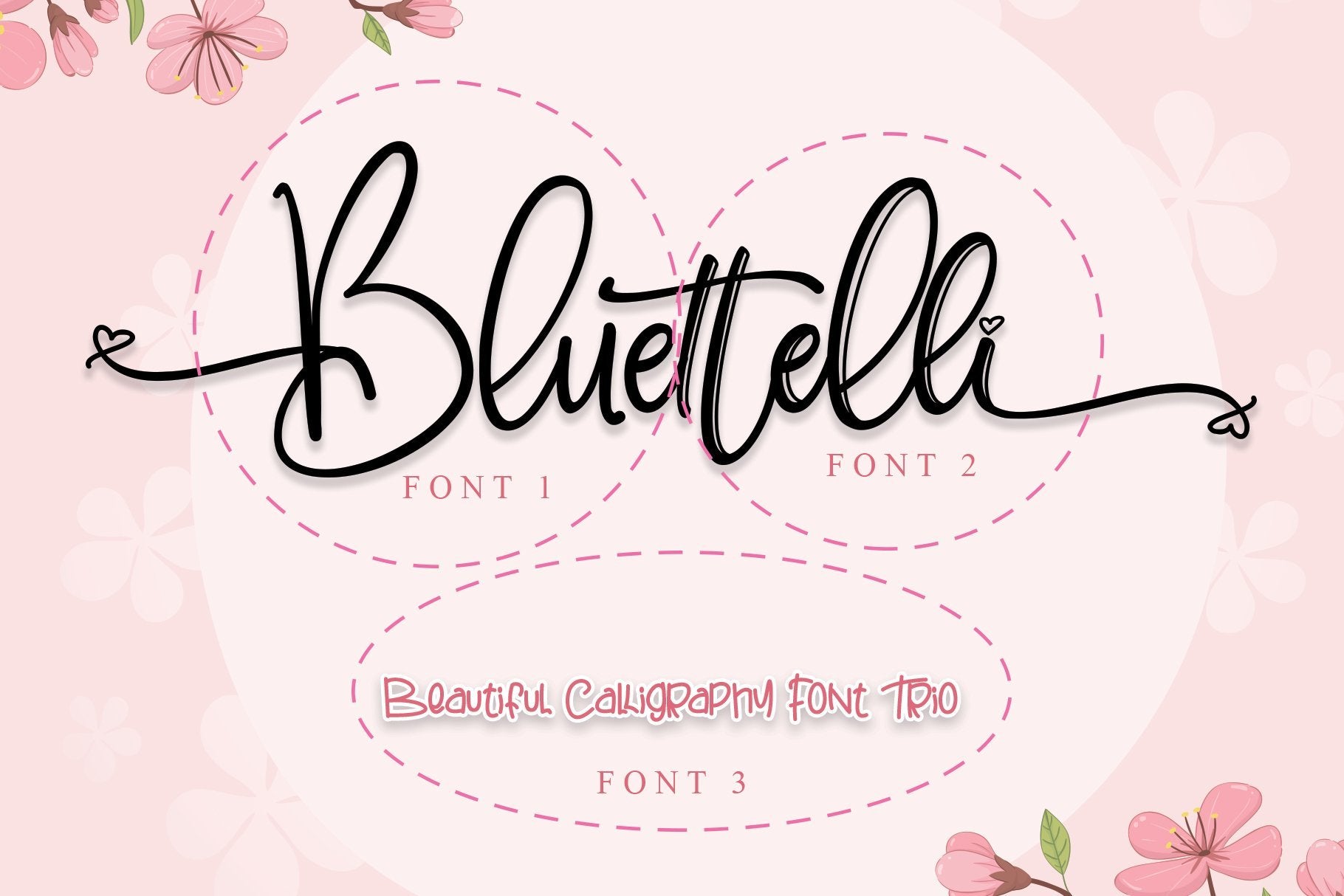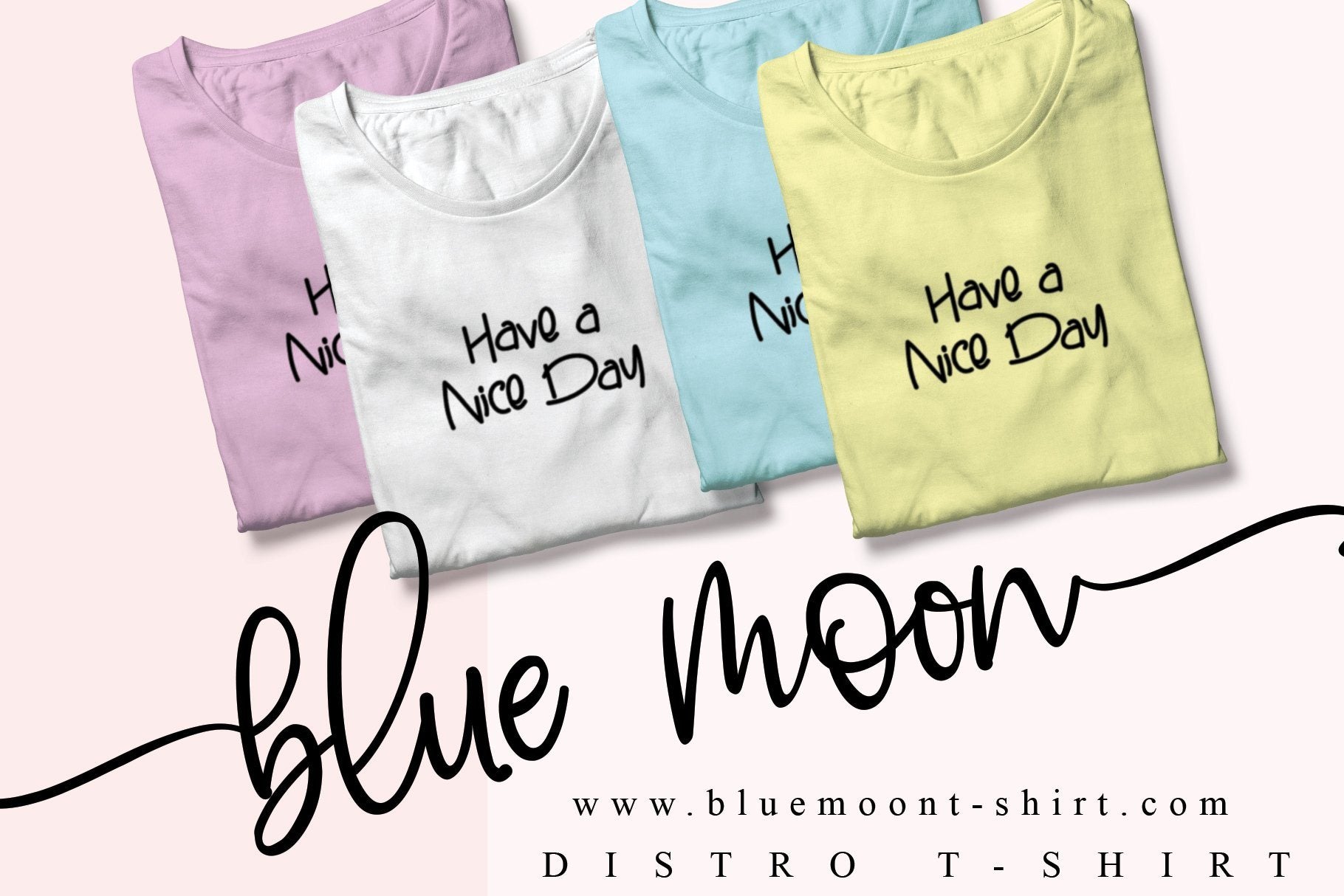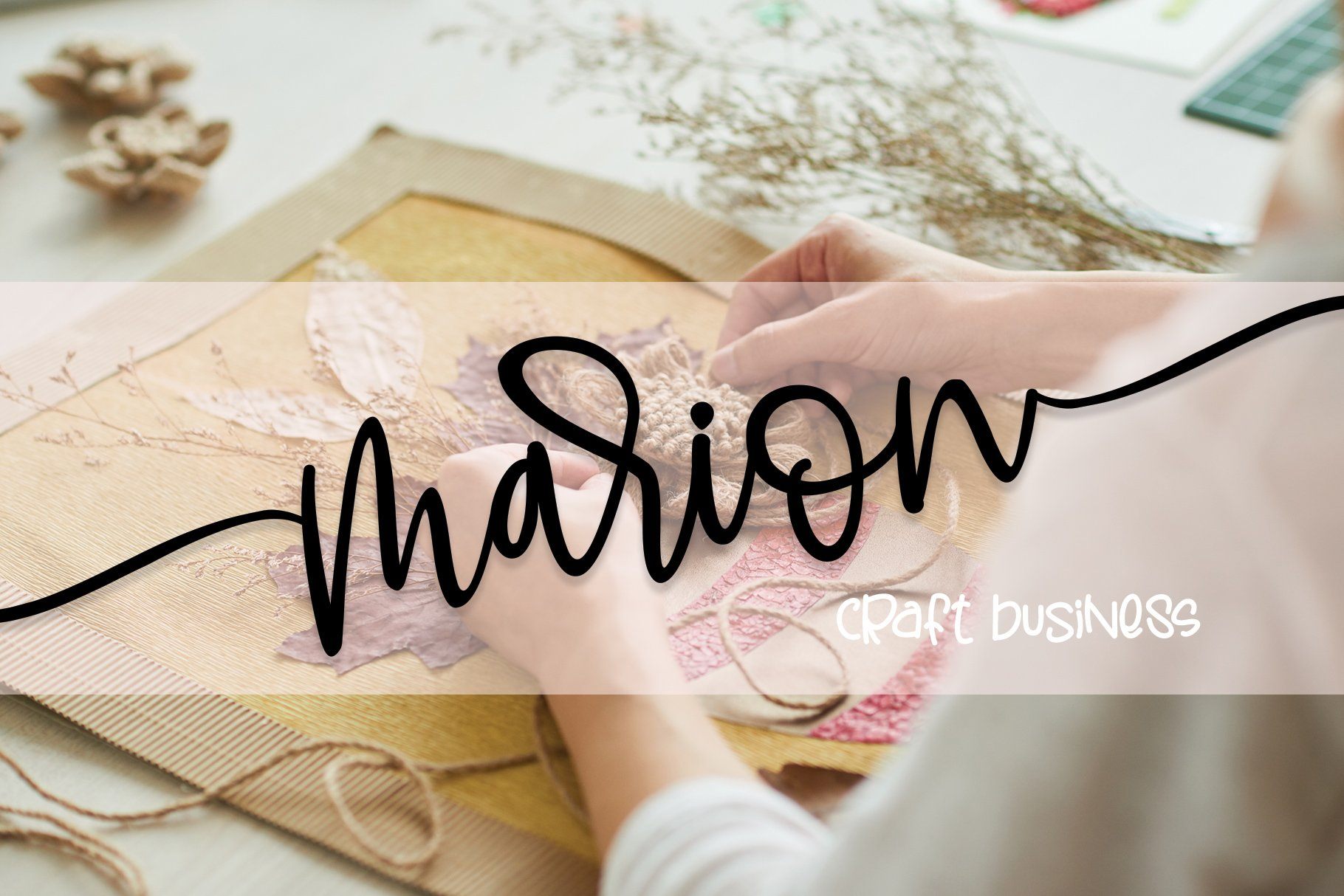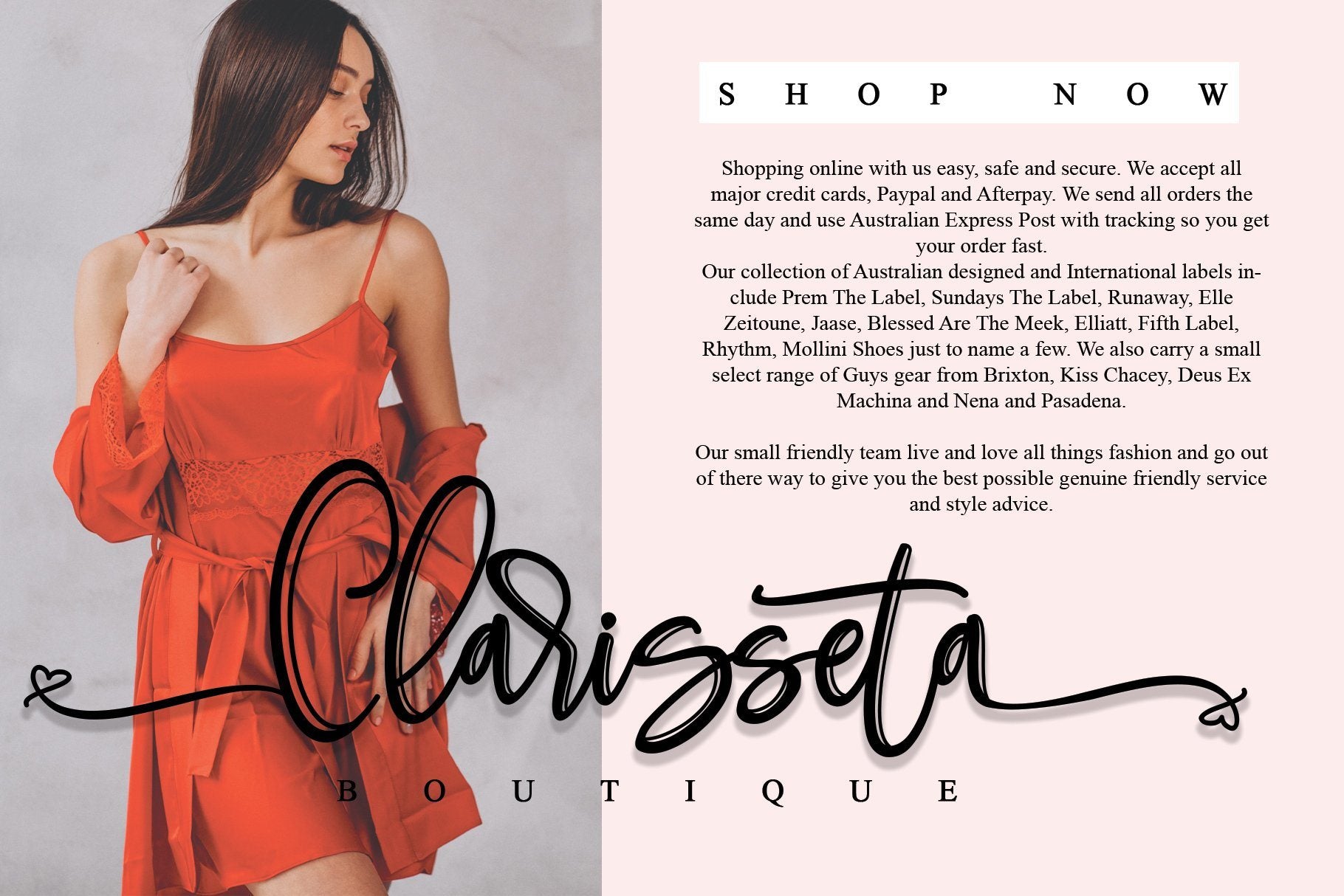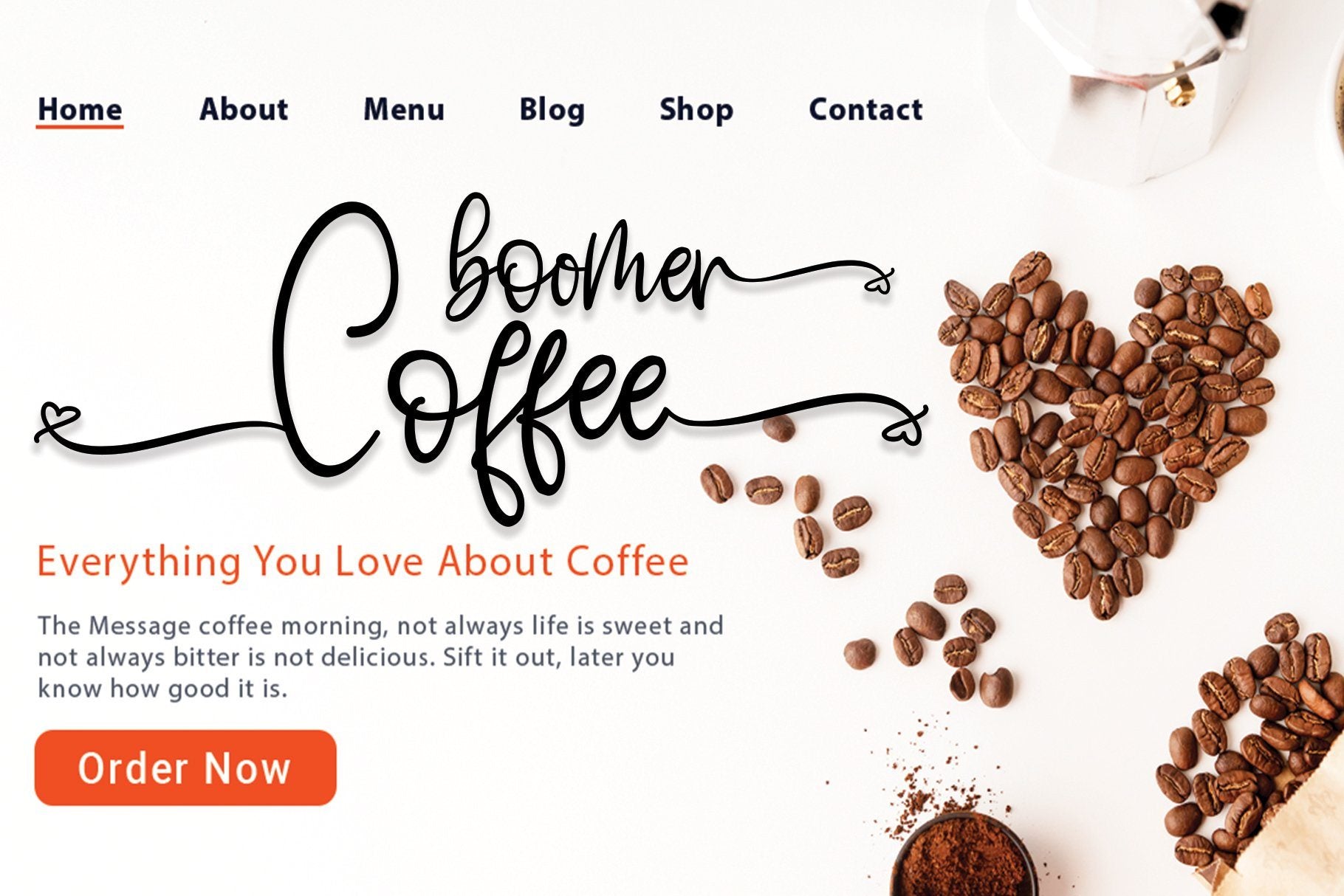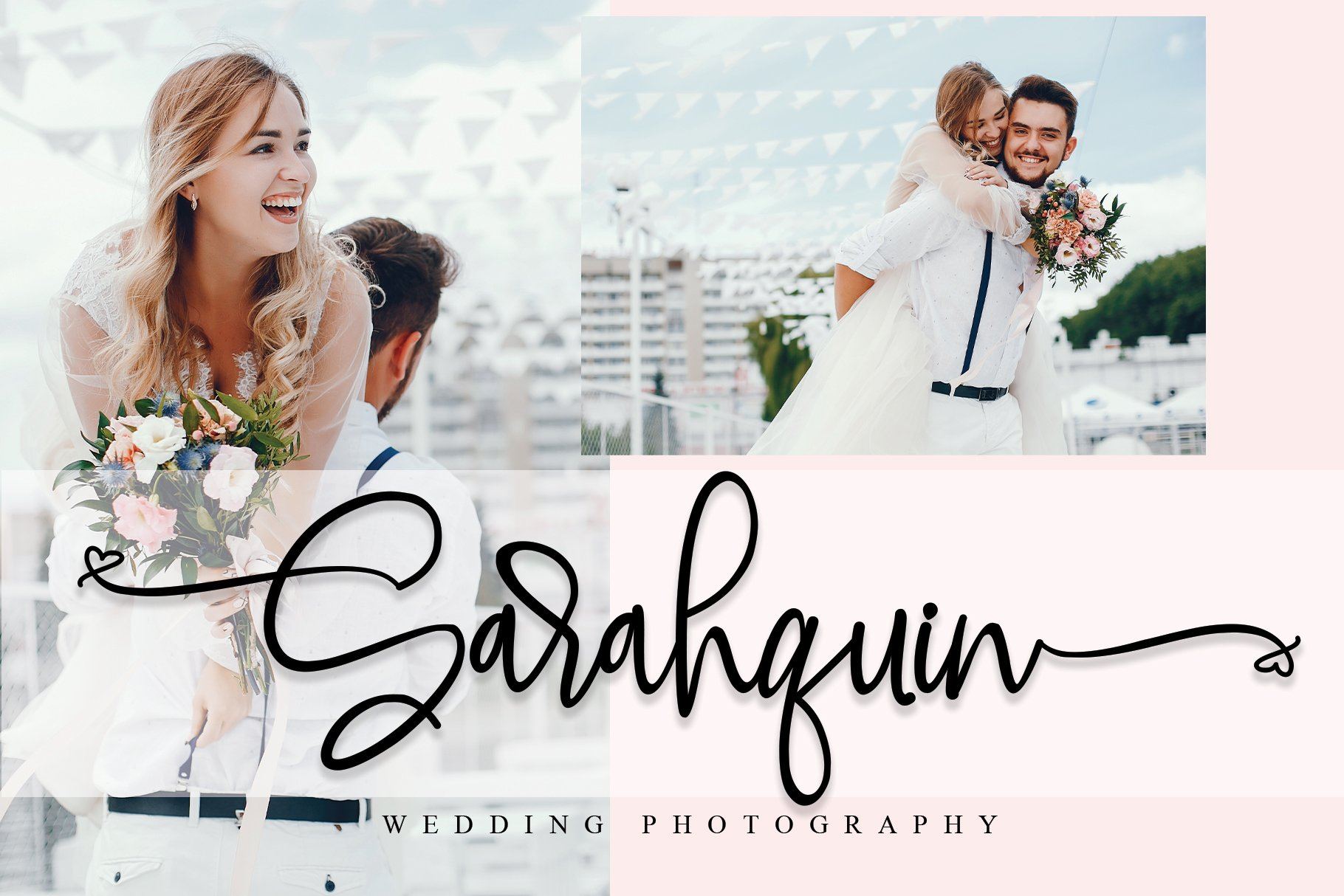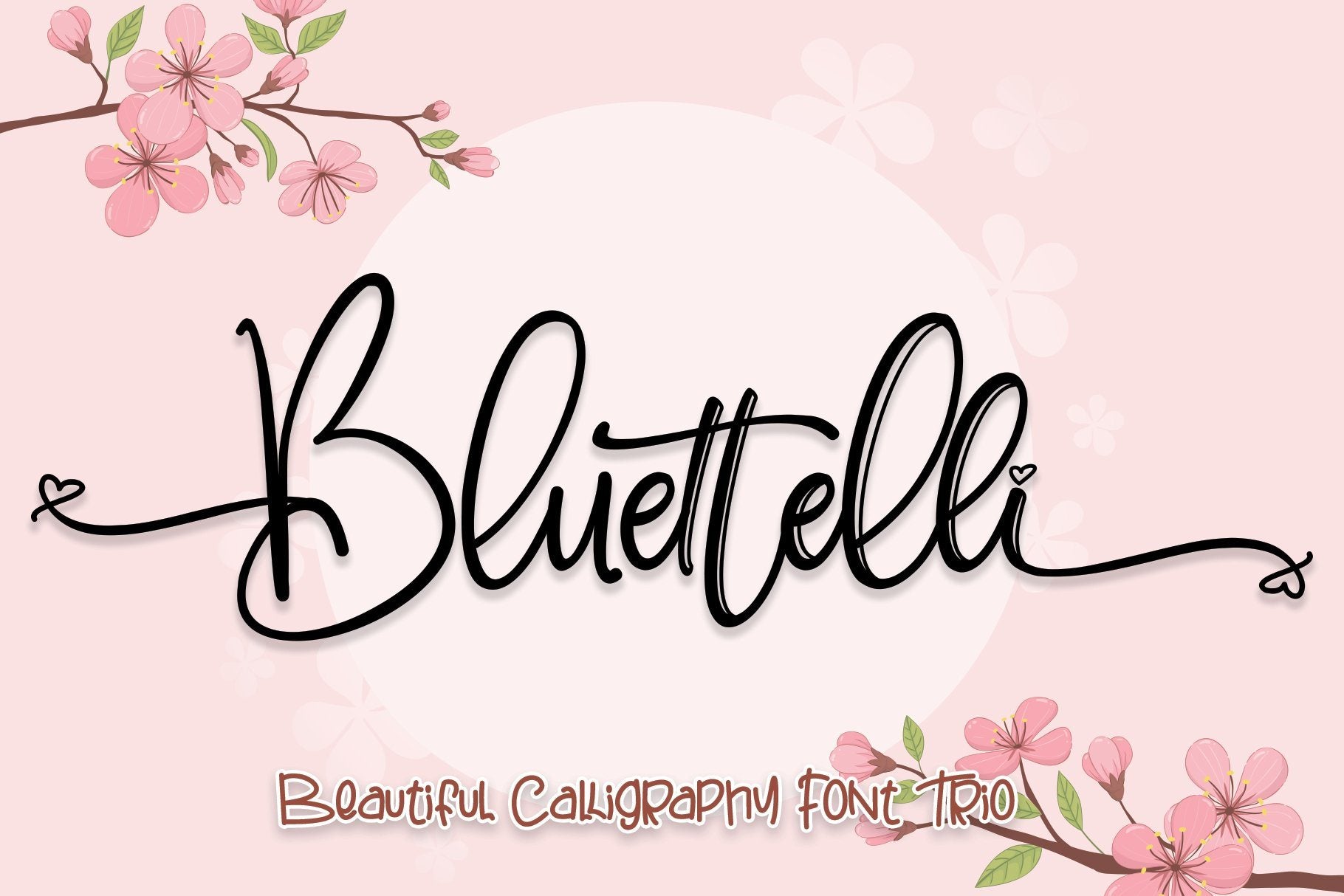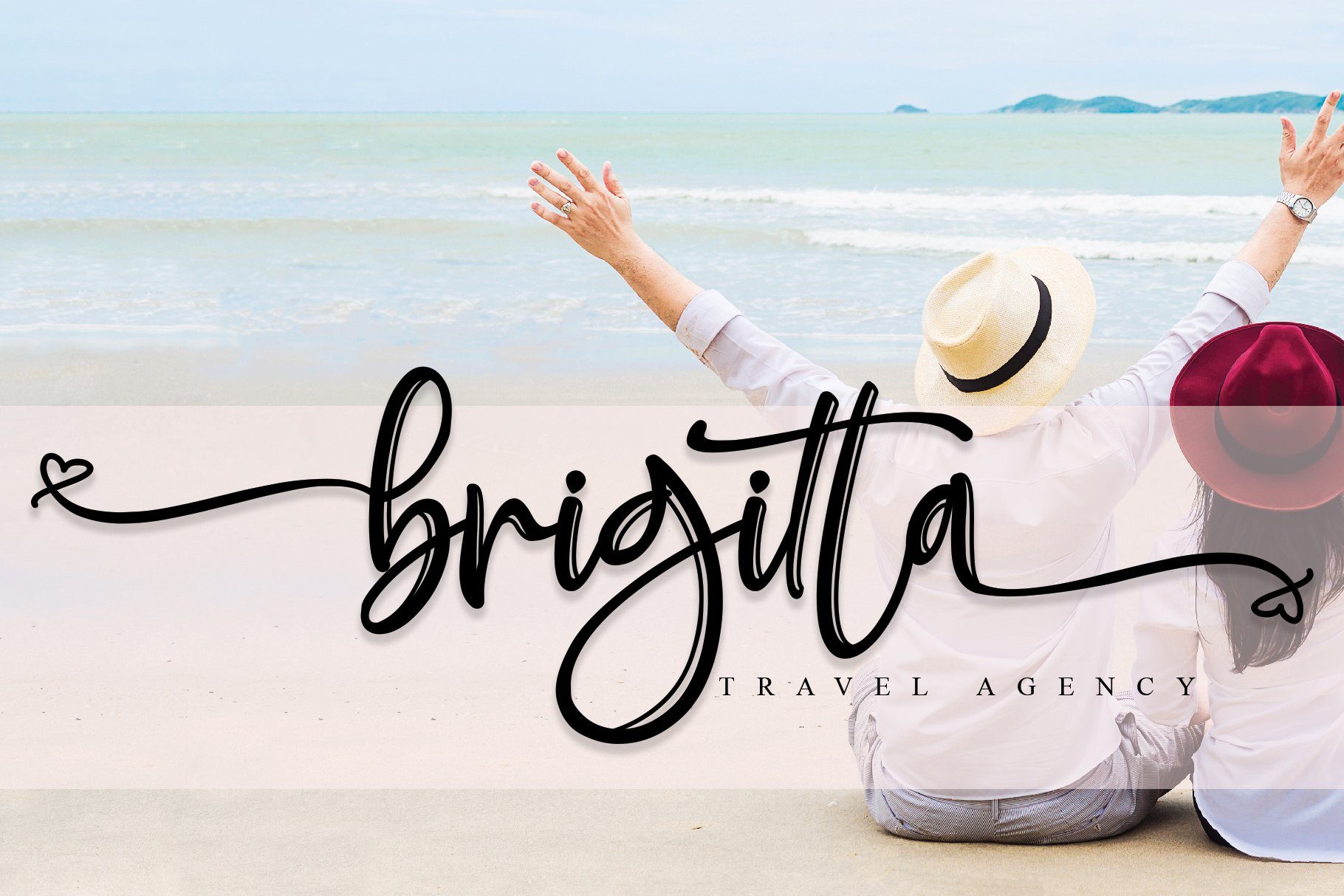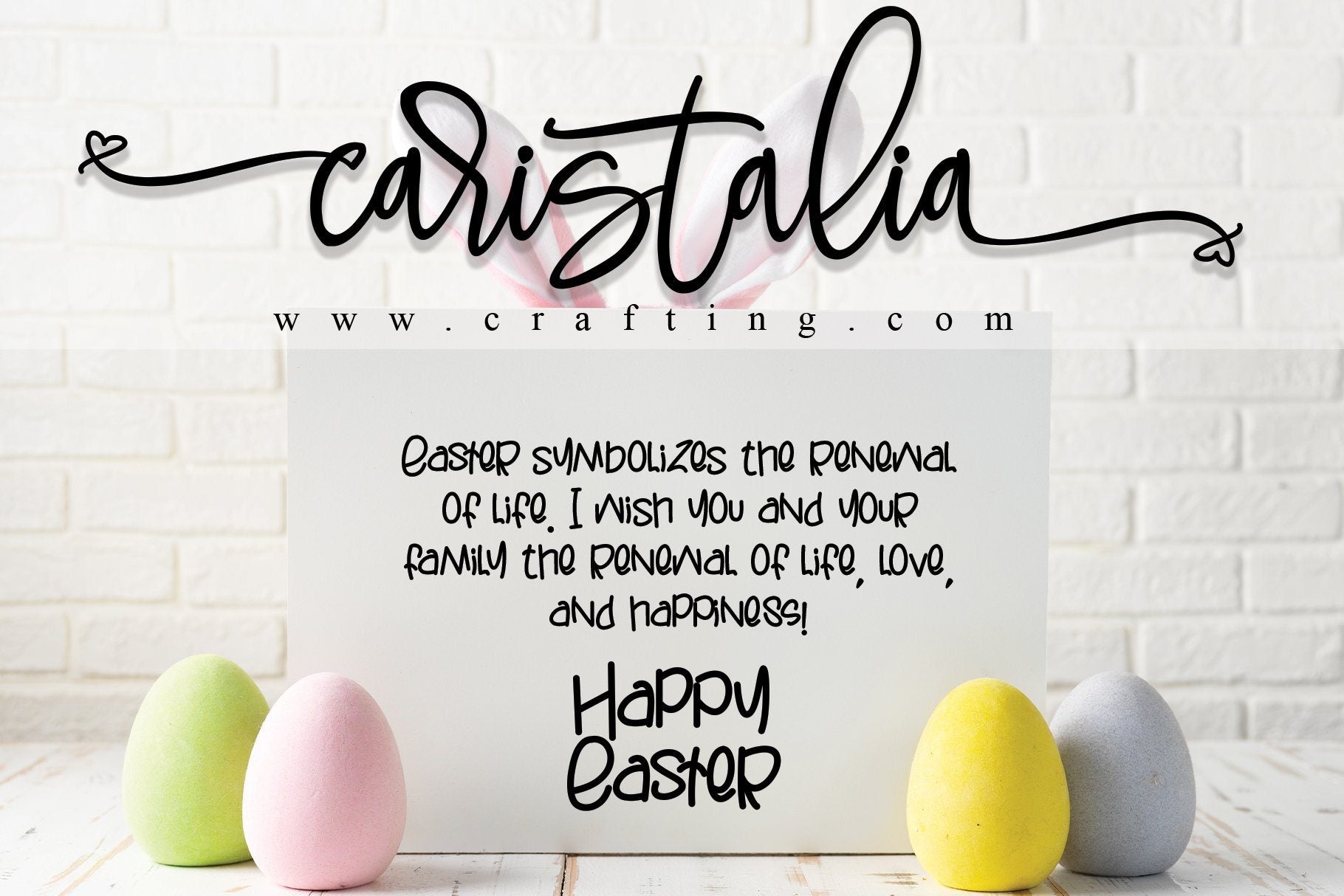
Bluettelli
LIMITED OFFER!!! Bluettelli is a fantastic font trio that combines three beautiful script calligraphy.  It has a feminine and elegant look which is great for logos, invitations, and blogs, but can also be used to make a striking headline. Get inspired by this extraordinary set! What’s Included : Bluettelli 1  (TTF, OTF, WOFF) Bluettelli 2 (TTF, OTF, WOFF) Bluettelli 3 (TTF, OTF, WOFF) Works both on Mac & PC Simple installations Support silhouette Many features: (A-Z, a-z) Alternate, (a-z)  Swash, & Ligature Accessible in the Adobe Illustrator, Adobe Photoshop, Adobe InDesign, CorelDraw, even work on Microsoft Word. Support multilingual; ä ö ü Ä Ö Ü ß ¿ ¡ To access the alternate glyphs, you need a program that supports OpenType features such as Adobe Illustrator CS, Adobe Photoshop CC, Adobe Indesign, and CorelDraw. More information about how to access alternate glyphs, check out this link  ( http://goo.gl/ZT7PqK ) This font is PUA encoded which means you can access all of the playful glyphs and swashes with ease! It also features a wealth of special features including alternate glyphs and ligatures. To stay up to date for my latest job, follow me and let’s be friends because there will be many promos. Our other products: BESTSELLER WELLDONE MILEADILA BEAUTIFUL KISSES ANGELIN GAMOS HERTINA JENNIE ANTIKA AURORA BLACK PINK SIGNATURE California Street BESTOWENS FAMILY